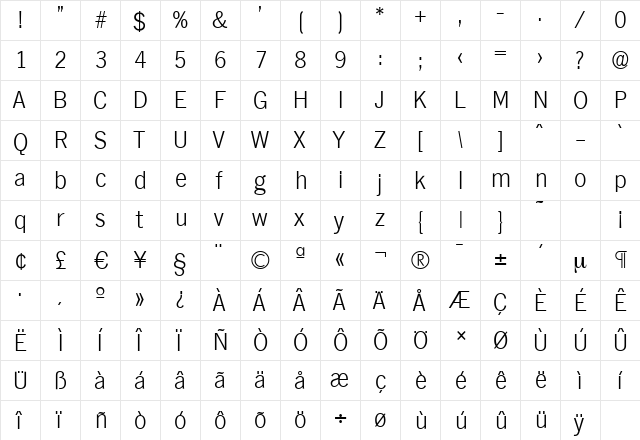
HamburgSerial-Xlight Regular
Design Context for HamburgSerial-Xlight Typeface
HamburgSerial-Xlight takes a measured approach to typography — its balanced proportions and neutral character make it a reliable workhorse for both digital and print work. Its slender proportions lend an understated elegance to any composition.